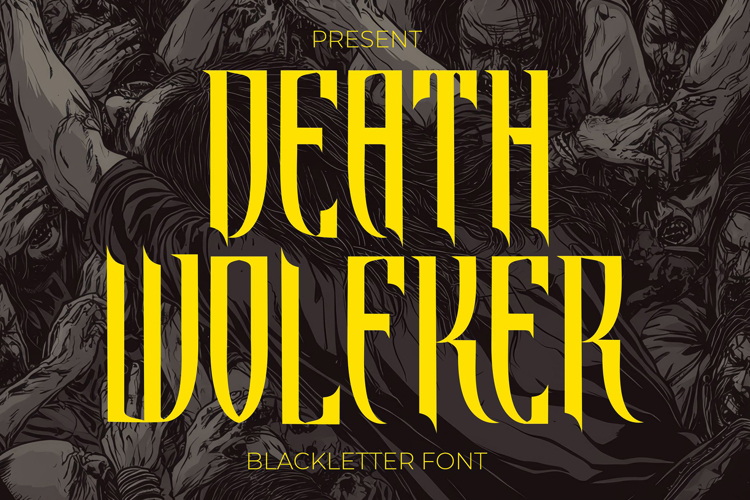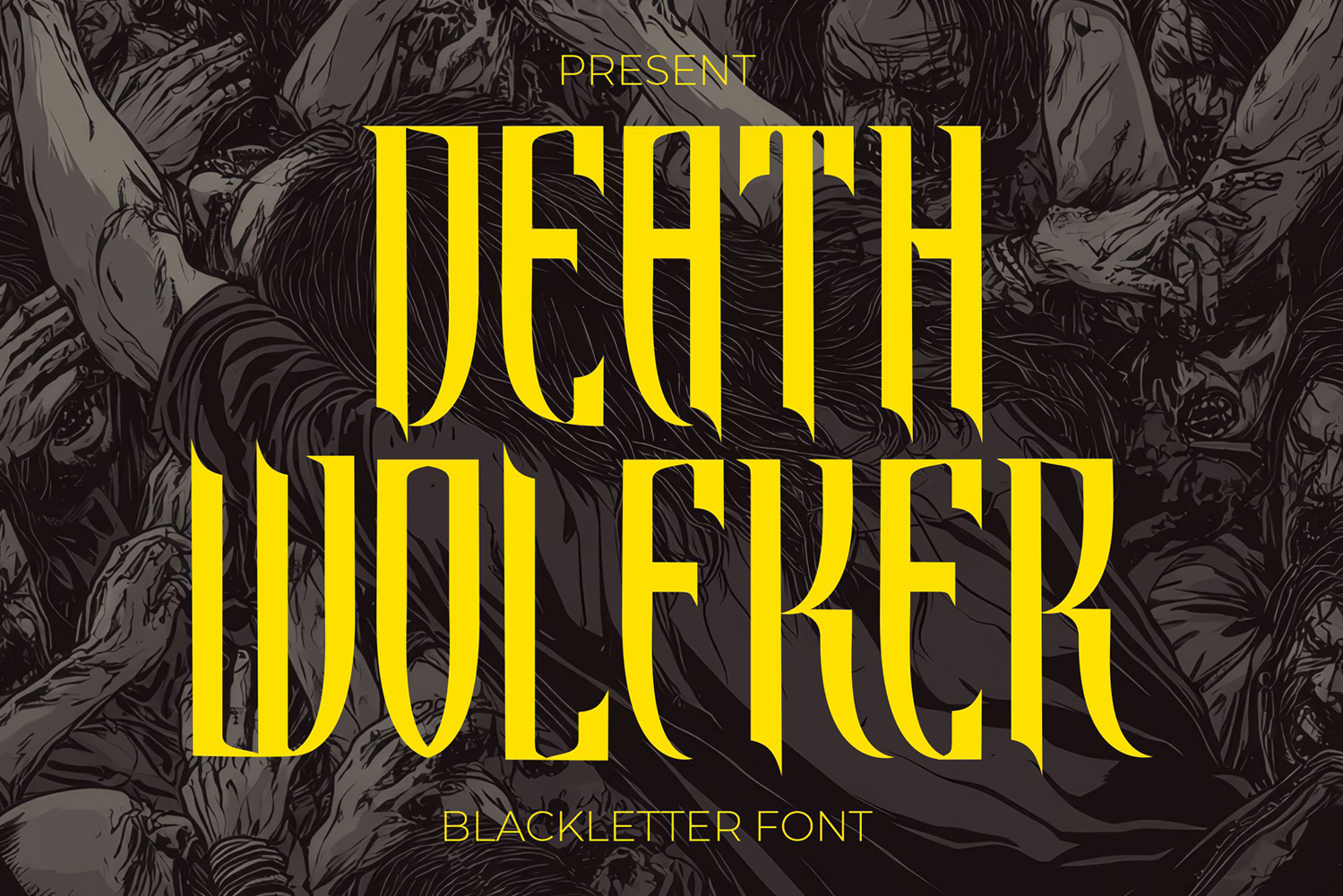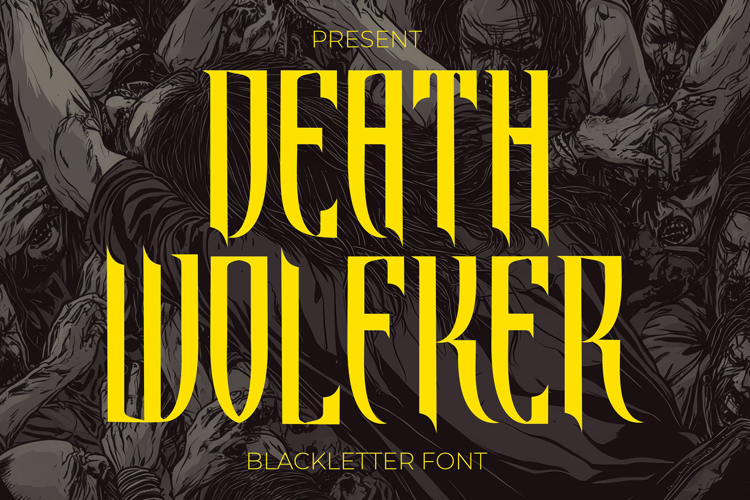
Death Wolfker - Blackletter Font
Death Wolfker is a commanding and fierce Blackletter font designed to make a bold impact. With sharp edges and a dark, gothic style, it delivers a powerful and rebellious vibe, perfect for projects that need a sense of intensity and drama.
🖤 Gothic Appeal: Featuring classic blackletter elements with a modern twist, Death Wolfker gives your designs a bold, medieval-inspired look, making it ideal for album covers, posters, logos, and tattoo designs.
⚔️ Powerful Presence: Its bold strokes and intricate details evoke a sense of strength and authority, ensuring your message stands out with a rebellious and fearless character.
Whether you’re working on gothic themes, edgy branding, or alternative projects, Death Wolfker injects your work with dark, dramatic energy.